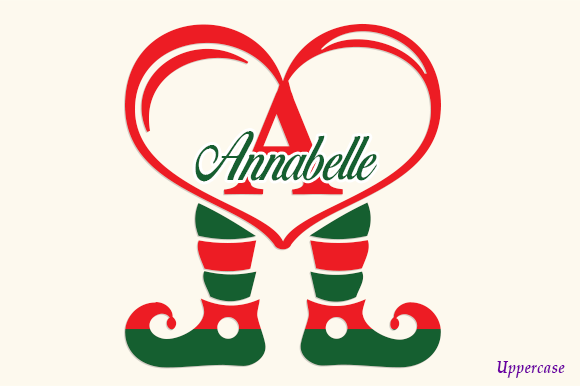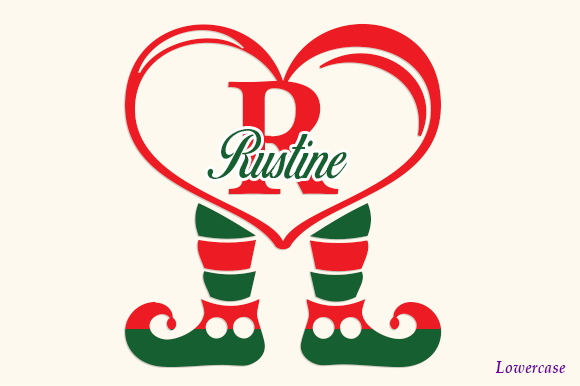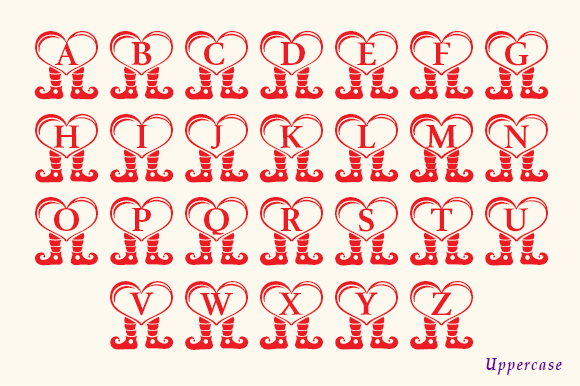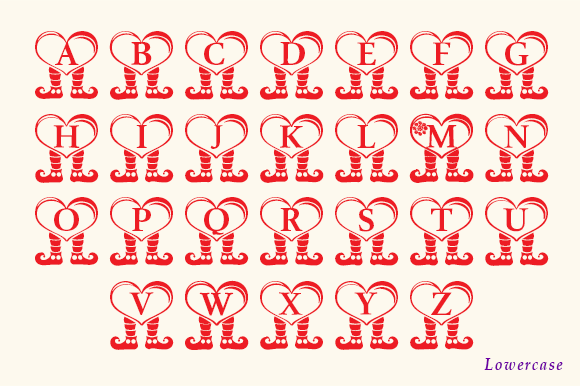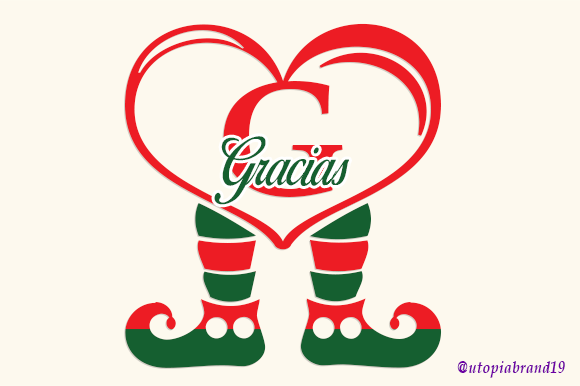
Deck the Halls with Holiday Cheer: Discover the Magic of Brutus Elf Leg Monogram Font
As the snowflakes start to fall and the festive lights twinkle in the window, I find myself in the perfect creative mood – wrapping gifts, baking cookies, and designing holiday cards. There’s something special about this time of year that sparks my imagination and inspires me to get crafty. And that’s exactly when I turn to my trusty font library, searching for the perfect font to bring my holiday designs to life.
Enter the adorable Brutus Elf Leg Monogram Font, a charming Christmas holiday inspired decorative font that will transport your designs to a whimsical winter wonderland. This delightful font is not just a pretty face – it’s a valuable tool for designers looking to add a touch of holiday magic to their projects. With its authentic feel and charming aesthetic, Brutus Elf Leg Monogram Font is the perfect addition to any designer’s toolkit.
Key Features of Brutus Elf Leg Monogram Font
- Font Family: A unique, monogram-style font featuring an elf leg design.
- Font Size: Designed to be highly scalable, with a recommended font size range of 24-72 points for optimal legibility.
- Unique Characteristics: Features a distinctive, hand-drawn design with intricate details and a playful touch, making it perfect for creative projects and branding.
Designer Review: Brutus Elf Leg Monogram Font
Overall, I think the Brutus Elf Leg Monogram Font has some great qualities that make it appealing, but also some limitations that might not make it the best fit for every project. ✨ Here are some of my observations:
- ✨ Unique and playful design: The font is a great representation of a whimsical, fantasy theme. It’s perfect for projects that need a touch of magic and wonder.
- ✨ Well-drawn letterforms: Each letter is carefully crafted, with attention to detail that makes it a joy to read.
- ✨ Good legibility: The font is clear and easy to read, even at smaller sizes.
However, there are some limitations that might make it less suitable for certain projects:
- ⚠️ Limited character set: The font only includes uppercase letters, with no lowercase or punctuation.
- ⚠️ Not suitable for body text: The font is more decorative than a traditional font, and might not be the best choice for large blocks of text.
- ⚠️ May not work well at very small sizes: While the font is clear at larger sizes, it might become blurry or difficult to read at very small sizes.
Overall, I think the Brutus Elf Leg Monogram Font is a great choice for projects that need a touch of whimsy and fantasy. It’s perfect for titles, headings, and other decorative elements, but might not be the best fit for larger blocks of text or everyday use.
The Brutus Elf Leg Monogram Font is ideal for:
– Holiday-themed designs and invitations.
– Whimsical and playful branding materials.
– Fantasy-inspired artwork and illustrations.
– Experiment with different font sizes and colors to create a unique look.
– Pair the font with other playful and whimsical elements to enhance its impact.
– Use the font in conjunction with a bold or italic font to create visual interest.